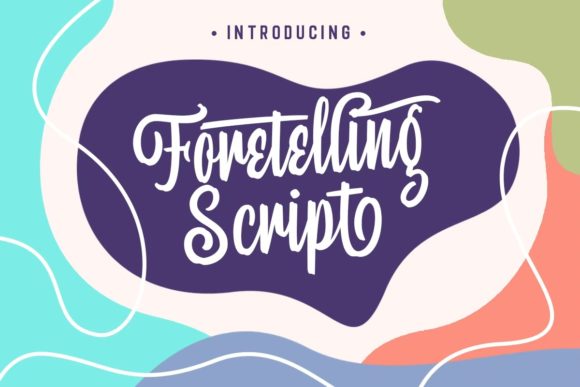
Introducing Foretelling Script Font: Elevate Your Designs with Elegance
In the world of typography, a font can make or break a design. For those seeking an elegant and sophisticated touch, the Foretelling Script Font is an exceptional choice. This beautifully crafted handwritten font is designed to add a touch of luxury and refinement to any project. With its flowing lines, gorgeous glyphs, and stunning alternates, Foretelling Script is sure to captivate your audience and leave a lasting impression.
What Makes Foretelling Script Font Special?
Foretelling Script is not just another font; it’s an experience. This elegant script font is PUA encoded, which means you can easily access all the glyphs and swashes with ease. The PUA (Private Use Area) encoding allows for a wide range of characters and symbols, making it incredibly versatile for various design applications. Whether you’re working on a branding project, packaging design, or digital content, Foretelling Script provides the flexibility and creativity you need.
Elegant and Flowing Design
Foretelling Script boasts a varying baseline, smooth lines, and exquisite glyphs that exude elegance and sophistication. The font’s design is deeply rooted in traditional calligraphy, yet it maintains a contemporary and fresh feel. This balance of classic and modern elements makes Foretelling Script perfect for designers looking to create stunning visual content that resonates with their audience.
The font’s flowing lines and curves are meticulously crafted to create a sense of movement and fluidity. This makes it ideal for designs that require a touch of dynamism and energy. Whether you’re creating a logo, heading, or body text, Foretelling Script adapts seamlessly to different design contexts.
Key Features of Foretelling Script Font
- PUA Encoded: Easy access to all glyphs and swashes for maximum creativity and flexibility.
- Varying Baseline: Adds a touch of organic and handmade feel to your designs.
- Smooth Lines: Creates a sense of fluidity and elegance.
- Gorgeous Glyphs: Exquisite and intricate designs that add depth and character to your text.
- Stunning Alternates: Offers a range of alternatives to help you customize and refine your typography.
- Classy Calligraphic Influences: Brings a sense of tradition and sophistication to your designs.
- Contemporary and Fresh: Ensures your designs feel modern and relevant.
Use Cases for Foretelling Script Font
The versatility of Foretelling Script makes it suitable for a wide range of design applications. Here are some use cases where this font truly shines:
- Branding and Logo Design: Create memorable and elegant logos that stand out.
- Packaging Design: Add a touch of luxury and sophistication to your product packaging.
- Digital Content: Elevate your website, blog, or social media graphics with refined typography.
- Print Materials: Ideal for business cards, brochures, posters, and other print materials.
- Wedding and Event Design: Perfect for creating beautiful wedding invitations, menus, and event branding.
Tips for Using Foretelling Script Font
To get the most out of Foretelling Script, consider the following tips:
- Pair with Simple Fonts: Combine Foretelling Script with simple, clean fonts for a balanced look.
- Experiment with Swashes: Take advantage of the PUA encoding to explore different swashes and glyphs.
- Adjust Font Size: Use varying font sizes to create visual hierarchy and emphasis.
- Play with Colors: Experiment with different colors to find the perfect match for your design.
| Font Name | Foretelling Script Font |
Foretelling Script Font is an exceptional addition to any designer’s toolkit. Its elegant and flowing design, combined with its versatility and creativity, makes it perfect for a wide range of design applications. Whether you’re looking to create stunning visual content, elevate your brand, or simply add a touch of sophistication to your designs, Foretelling Script is sure to impress. With its PUA encoding, gorgeous glyphs, and stunning alternates, this font is sure to take your designs to the highest levels.
Get Ready to Fall in Love with Foretelling Script